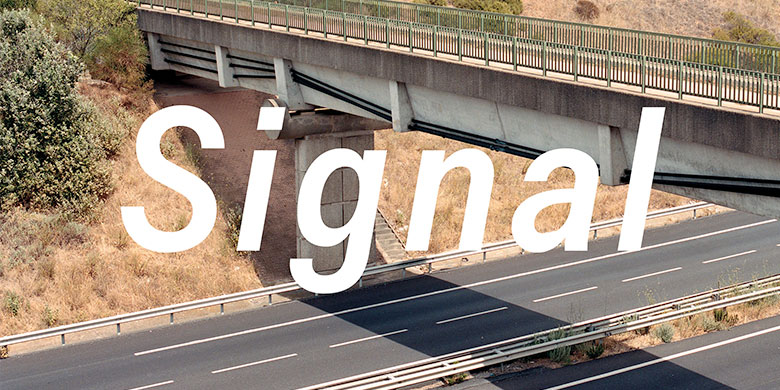
Signal
Signal leans on a significant part of the French typographic landscape: Caractères, the typeface found on road signs throughout France. Although the genesis of these standardized alphabets (originally instated by the Ministry of Transport) remains obscure, they’ve officially dominated the French road network since 1946, and embody its typographic identity.
Until now, Caractères had existed only in its standardized form: four incomplete styles named L1, L2, L4 (an italic variant with both upper- and lowercase characters), and L5. The bootleg digital versions available were similarly incomplete and poorly executed.
Specifically developed with urban signage, interfaces, and exhibition design in mind, Production Type’s new Signal series completes and extends the pre-existing set of styles. The palette is an extrapolation of previously unexisting roman lowercases in four weights and their matching italics, a complete set of accents for multilingual typesetting, numerous arrows and pictograms, and characters for mathematical typesetting. An extra Compressed style, skewed and excessive, wittily rounds out the family. As a new ensemble, Signal boosts Caractères’ potential, making it particularly well-suited for interface design.
An epitome of late-modernist thinking, Signal’s aesthetic is inextricably bound up with administrative design. The letters conform to the rigor that suffused most sans serifs of the second half of the twentieth century. Signal has a bespoke appearance and a distinctive typographic color (see especially the unconventional spacing of the italic cuts). Production Type has a long-standing relationship with signage typefaces, making them a focus of research from as early as 2003. This new Signal, revisited and harmonized, continues our reflexion and opens up new possibilities for dialogue.